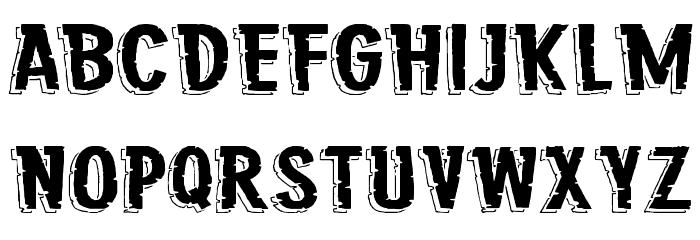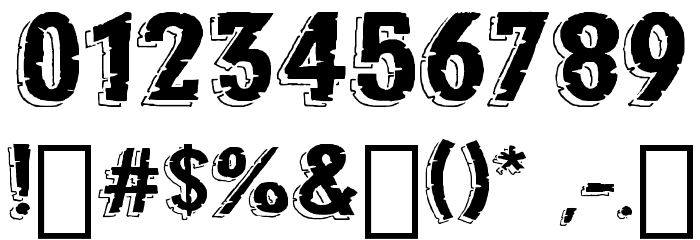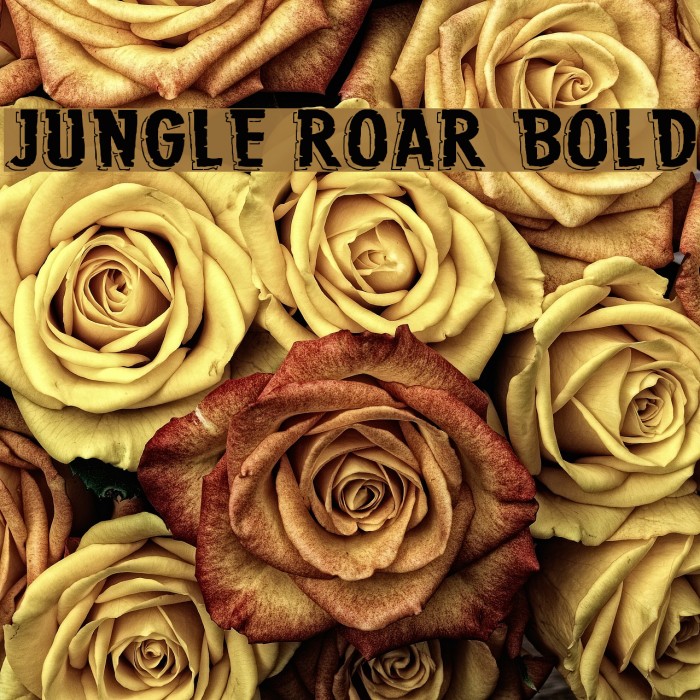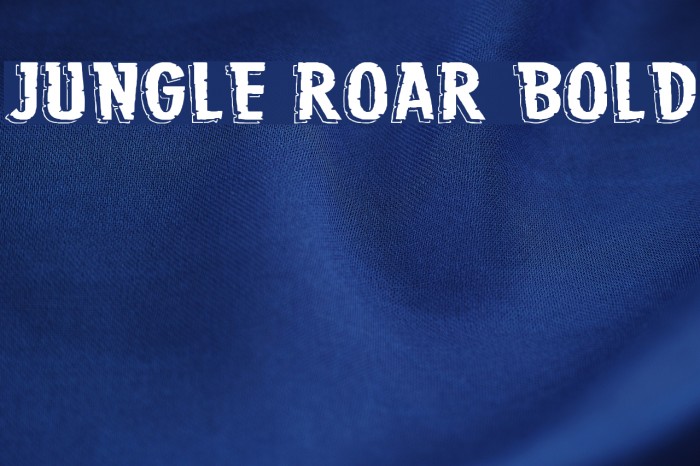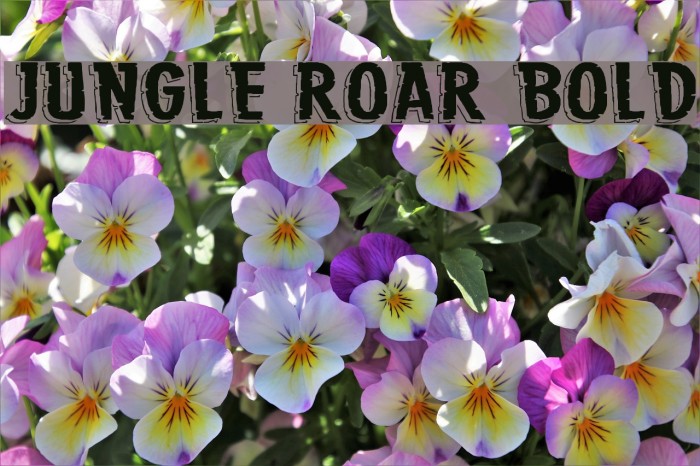
Jungle Roar Bold Font
This bold and dynamic font features a rugged, distressed style that evokes a sense of adventure and wild energy. The characters are heavily stylized with rough edges and a shadow effect that gives them a three-dimensional appearance. The uppercase and lowercase letters maintain a consistent design, ensuring readability while adding a unique flair. The numbers and special characters follow the same aesthetic, making this font versatile for various creative projects. Its boldness and distinctive style make it ideal for capturing attention and conveying a sense of excitement.
A bold, distressed font with a rugged, adventurous style.
- Proposed Projects: Ideal for posters, adventure-themed branding, video game titles, and outdoor event promotions.